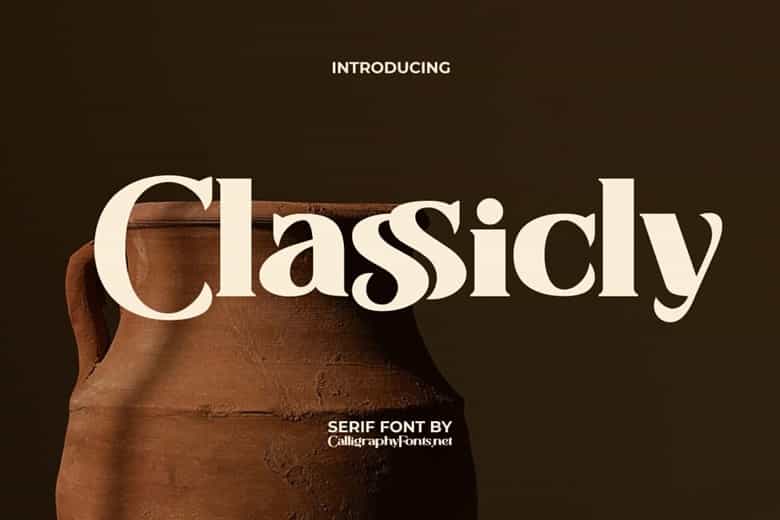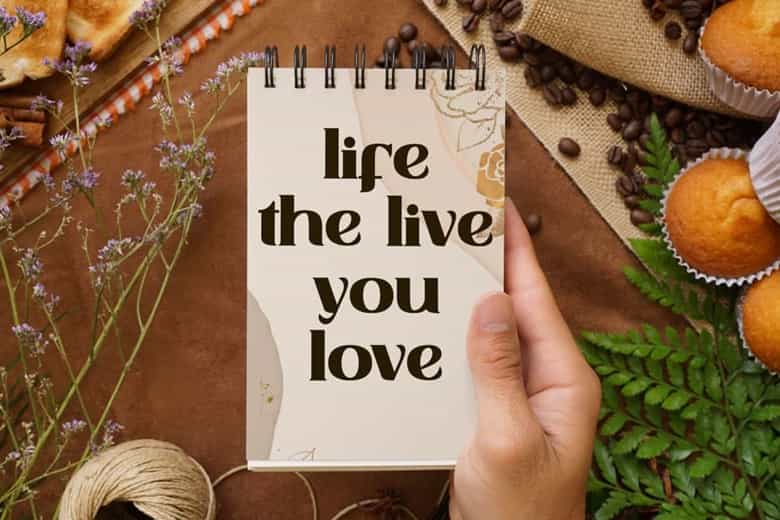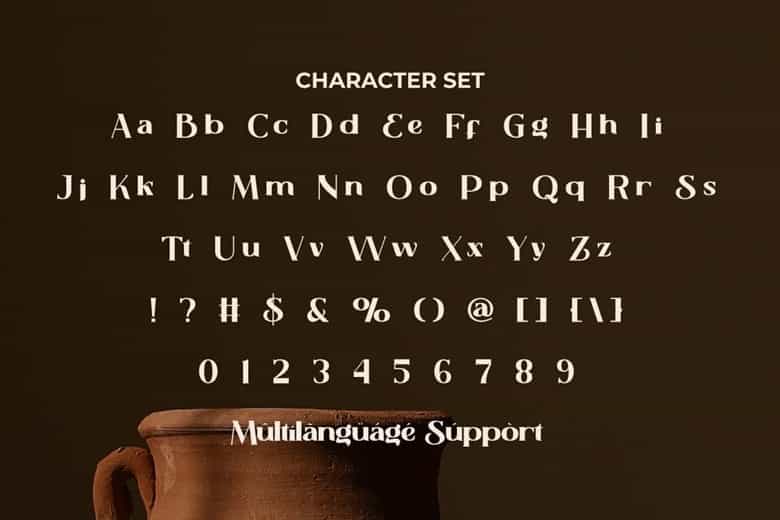
Discover Classicly Font, part of the Serif Display collection—a versatile and unique font perfect for adding a personal touch to your projects. Download it for free and enjoy crafting designs with style, from invitations to social media posts. This font is available exclusively for personal use, giving you the freedom to create without limits. Unlock your creativity with Classicly Font today!
Classicly is a serif font that has a bold letter composition appearance as well as has ligatures that enhance the design of the font. crafted with inspiration from the retro type font design. This typeface is very suitable for any one who need to give his/her design that oldies but goldies feel so it is ideal for blogs, brand logos, cards designs, headers, invitations, labels, stationery, titles, website and many more.